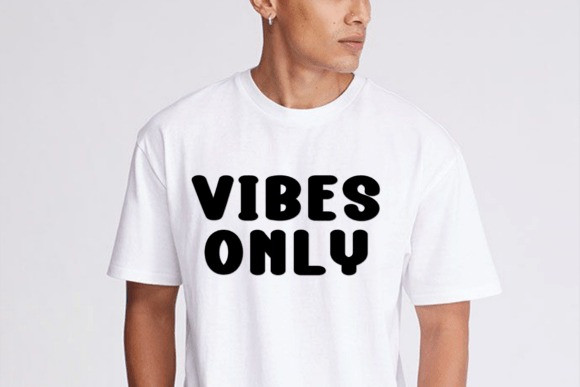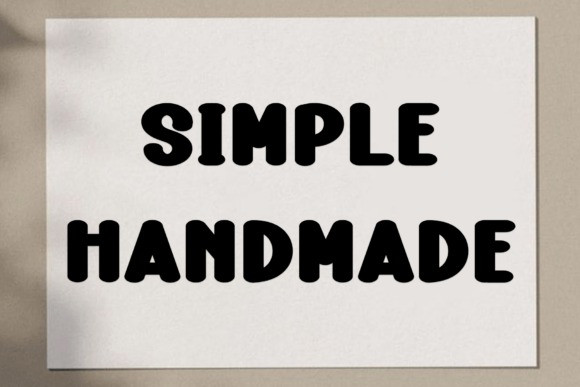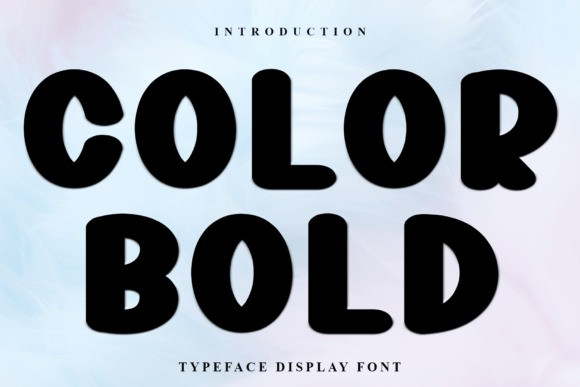
Color Bold Font
Color Bold Font a chunky and expressive display typeface that refuses to be ignored.This Color Bold typeface features soft, puffy letterforms and a heavyweight that creates an instant sense of fun and approachability. Perfect for bold social media ads, creative titles, and youth-oriented packaging, the Color Bold font turns every word into a design element.
Whether you’re working on a colorful poster or a vibrant logo, the Color Bold typeface provides the “wow” factor needed to capture attention in a crowded market.